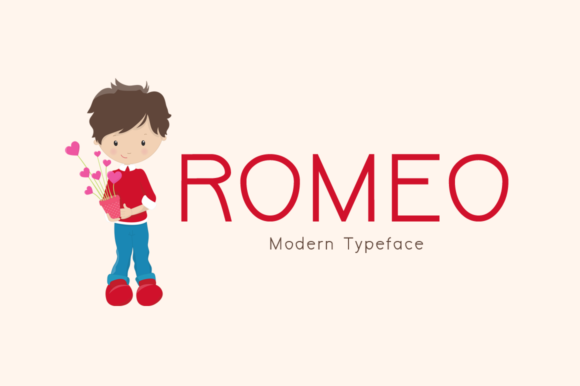
Get ready to fall in love with Romeo Font, the sans serif font that exudes friendliness and charm, designed specifically for Instagram Fonts. Its unique personality makes it an absolute delight for creating logos, stationery, social media posts, and any project that demands a touch of warmth and sophistication.
Romeo Font possesses an inherent charm that sets it apart from the ordinary. Its smooth curves and elegant lines dance harmoniously together, creating a visual symphony that captivates the eyes. Each character is meticulously crafted to convey a sense of approachability and ease, inviting readers to engage with your content on a deeper level.
Step into a world of endless possibilities with Romeo Font. Its versatility knows no bounds, seamlessly adapting to various designs and styles, from playful and whimsical to elegant and timeless. Let your creativity flourish as you witness Romeo Font effortlessly elevate your projects to new heights of visual appeal.
Whether you're a seasoned designer or just starting your creative journey, Romeo Font is your perfect companion. Its user-friendly nature makes it accessible to all, allowing you to effortlessly weave your words into captivating designs. Say goodbye to the mundane and embrace the extraordinary with Romeo Font.